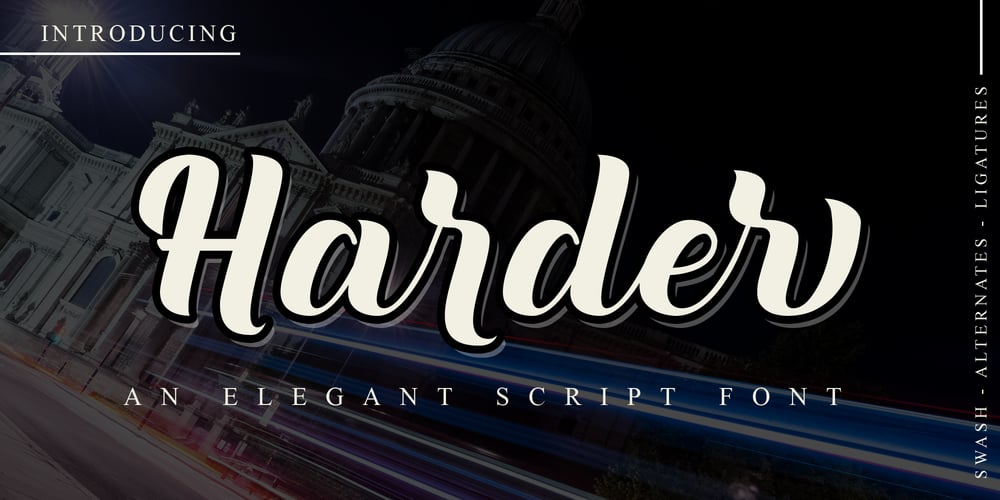
Harder
Harder font
Harder Font Family was designed by Abduhan Fikhri and published by Doehantz Studio. Harder contains 1 styles and family package options. Fresh and New, Harder. Harder is an elegant script font.Made from vectorized hand strokes so that it will look neat on each side of the character.He has several character alternatives that will offer interesting options for any of your design projects